15 Best Elegant Fonts for Luxury Branding and Editorial Design 2026
Elegant Fonts are a strong choice for designers who need typography with refinement, contrast, and visual authority. This collection brings together 15 serif, script, calligraphy, and modern display fonts suited for logos, luxury branding, editorial layouts, wedding stationery, packaging, and high-end digital designs.
Kaviera Font
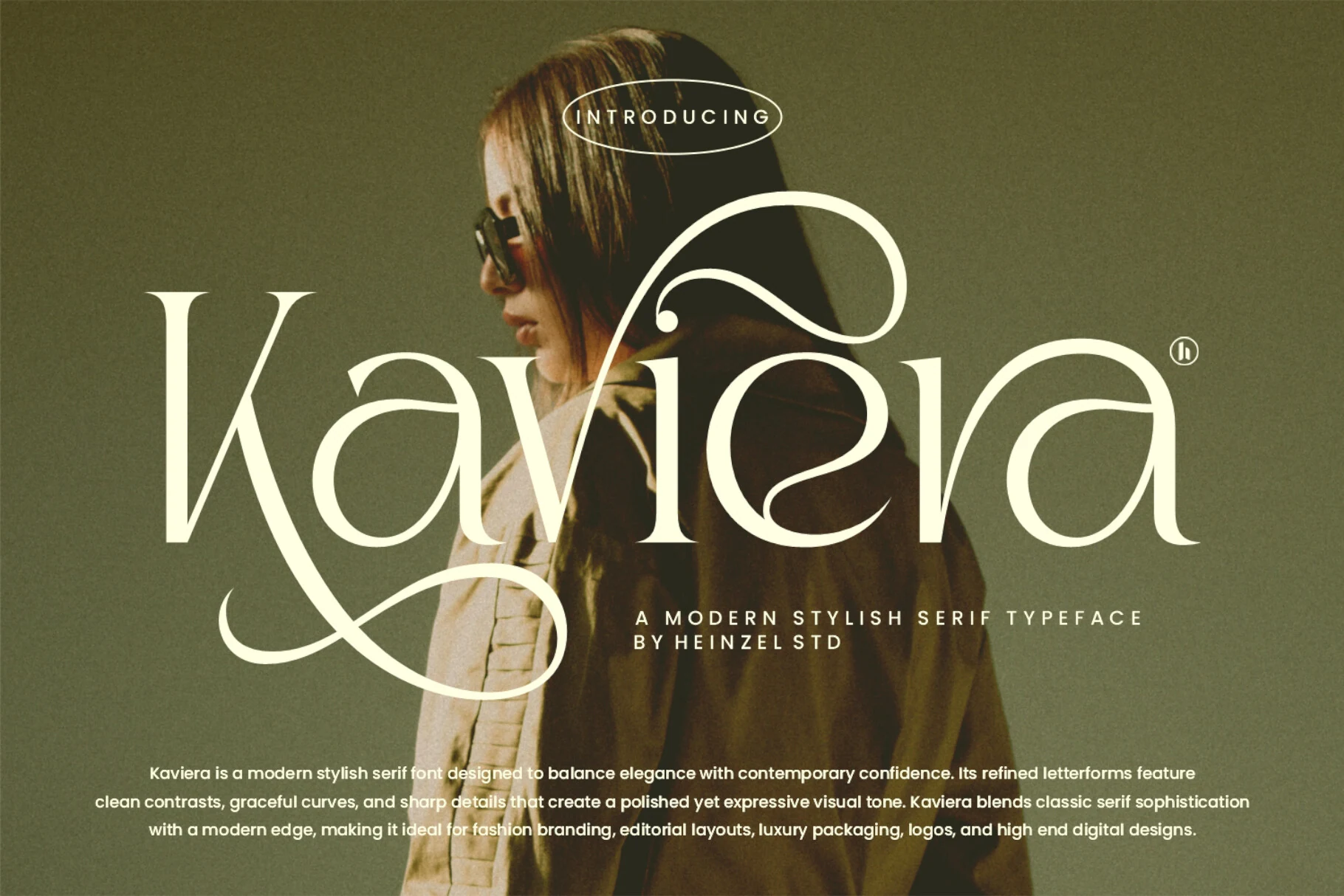
Best For: logos, fashion branding, editorial designs, luxury designs
Kaviera Font has a fashion-editorial serif structure with sharp contrast, narrow stress, and long sweeping curves that turn individual letters into visual anchors. Its polished rhythm fits Elegant Fonts lists where the typography needs to feel refined without becoming quiet.
The ornate curves work best when the wordmark has enough horizontal space, because the extended strokes need room to complete their shapes. Use strong contrast behind it and keep supporting text restrained so Kaviera stays in control of the title hierarchy.
Elegant Font Abby Font
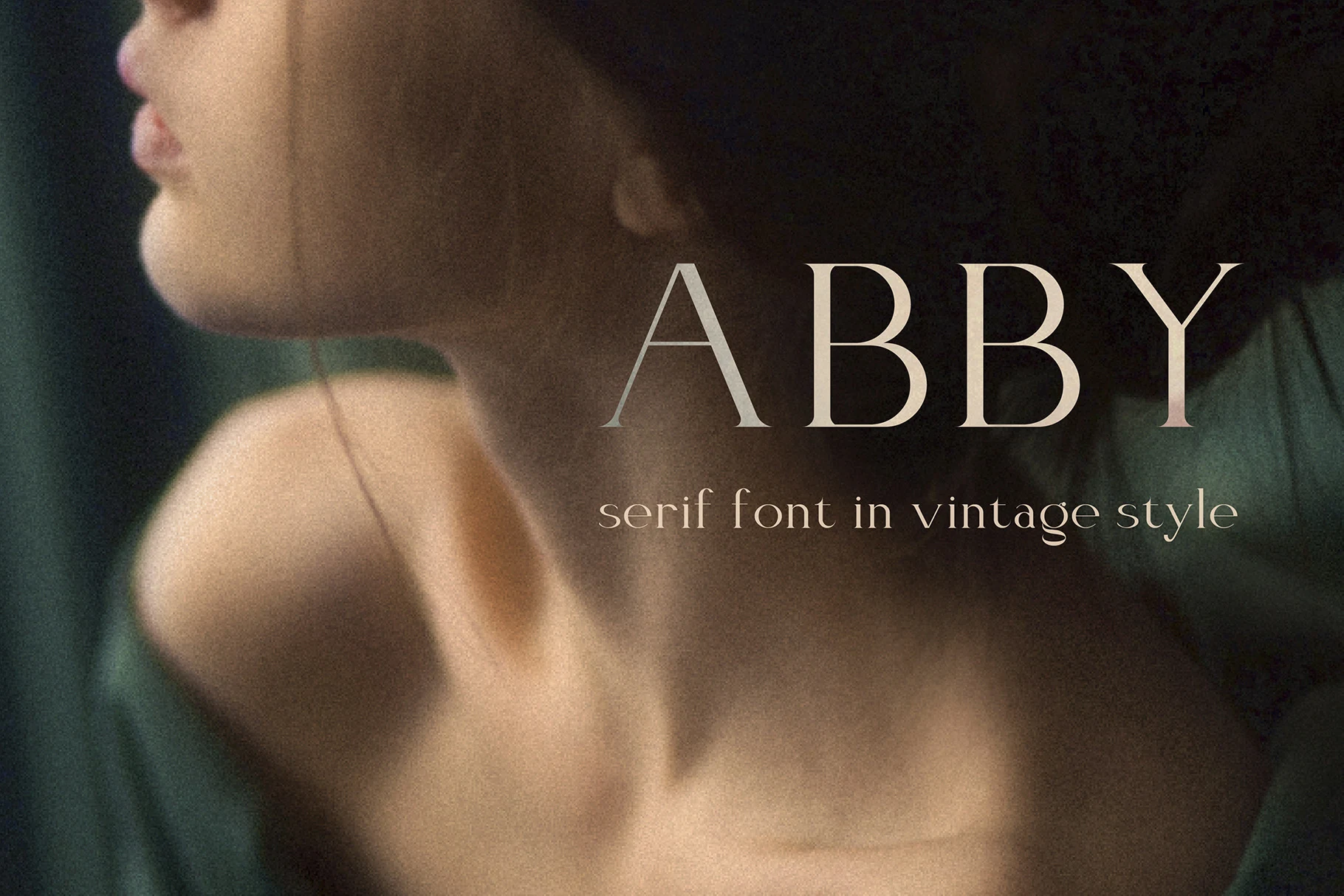
Best For: logos, editorial designs, minimal designs, vintage designs
Elegant Font Abby Font carries a quiet vintage mood, with tall serif capitals, delicate hairlines, and softly flared terminals that echo old printed title pages. The spacing feels airy rather than dense, which gives it a composed, gallery-like presence suited to Elegant Fonts collections and minimalist brand layouts.
It performs best in short words, logos, and headings where the contrast and proportions stay visible. The letterforms invite small experiments with tracking and scale, so you can make the same word feel either more classical or more modern without adding decorative extras.
Munnes Font
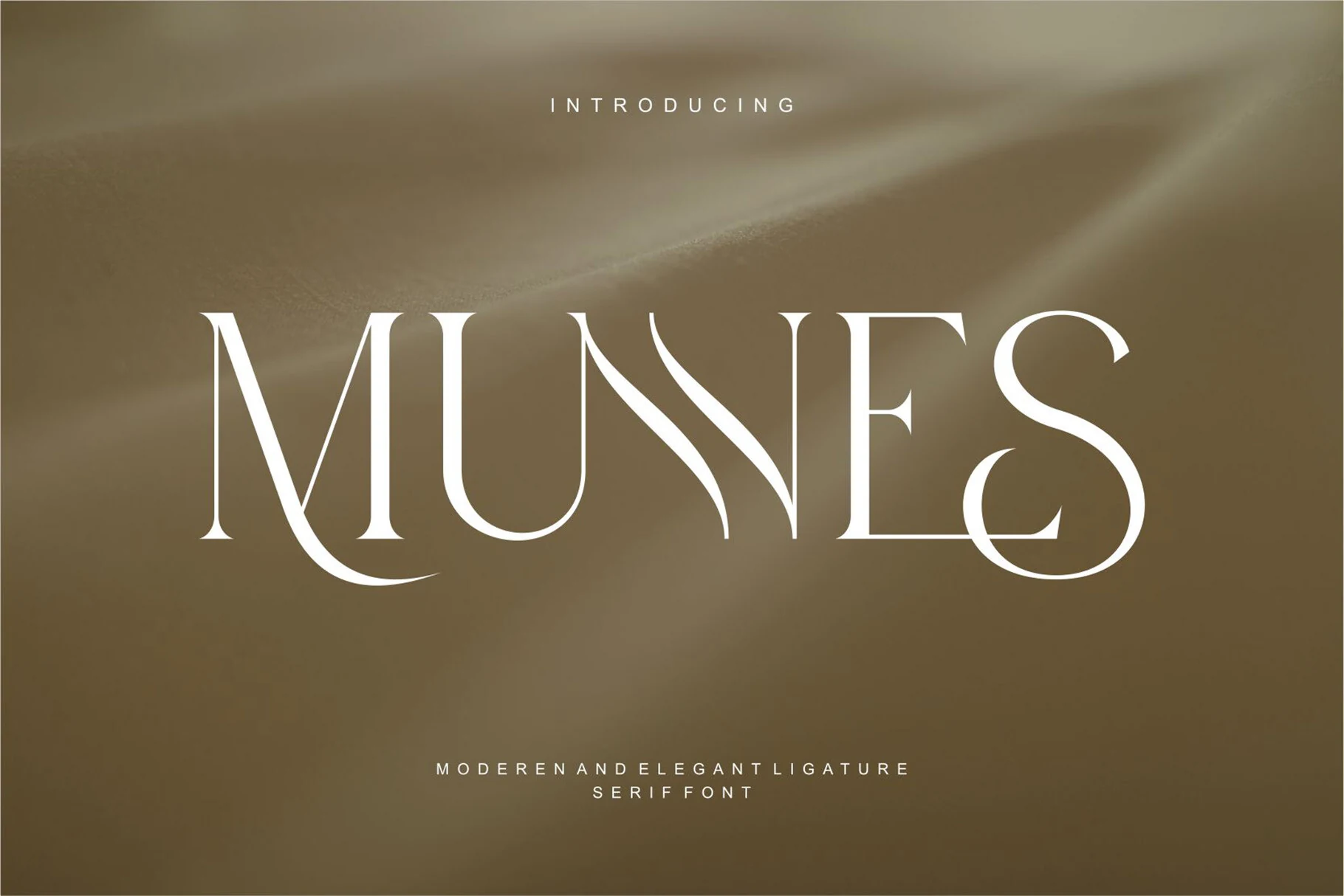
Best For: logos, fashion branding, editorial designs, luxury designs
Munnes Font uses tall serif capitals, sharp contrast, and sculpted curves to create a refined vintage-modern title style. The sweeping lower strokes and narrow internal spaces give it a polished rhythm that fits Elegant Fonts roundups without feeling overly delicate.
Keep Munnes in short display settings where its curved terminals and dramatic proportions can stay readable. Wider tracking helps the letterforms feel more luxurious, while restrained supporting type keeps the main wordmark from competing with its own decorative movement.
Elegant Font
Best For: logos, fashion branding, editorial designs, high-end designs
Elegant Font has a poised modern serif look, with smooth curves, balanced proportions, and fine contrast that keeps the large letterforms polished instead of stiff. It carries the kind of composed, fashion-led presence that fits naturally into Elegant Fonts roundups for refined branding and clean editorial statements.
This style works best at display size, where the rounded bowls and tapered strokes have room to read clearly. Give it generous spacing and keep the supporting typography quiet, because the font already brings enough character to lead the hierarchy on its own.
Grandeur – Elegant Classic Serif Font
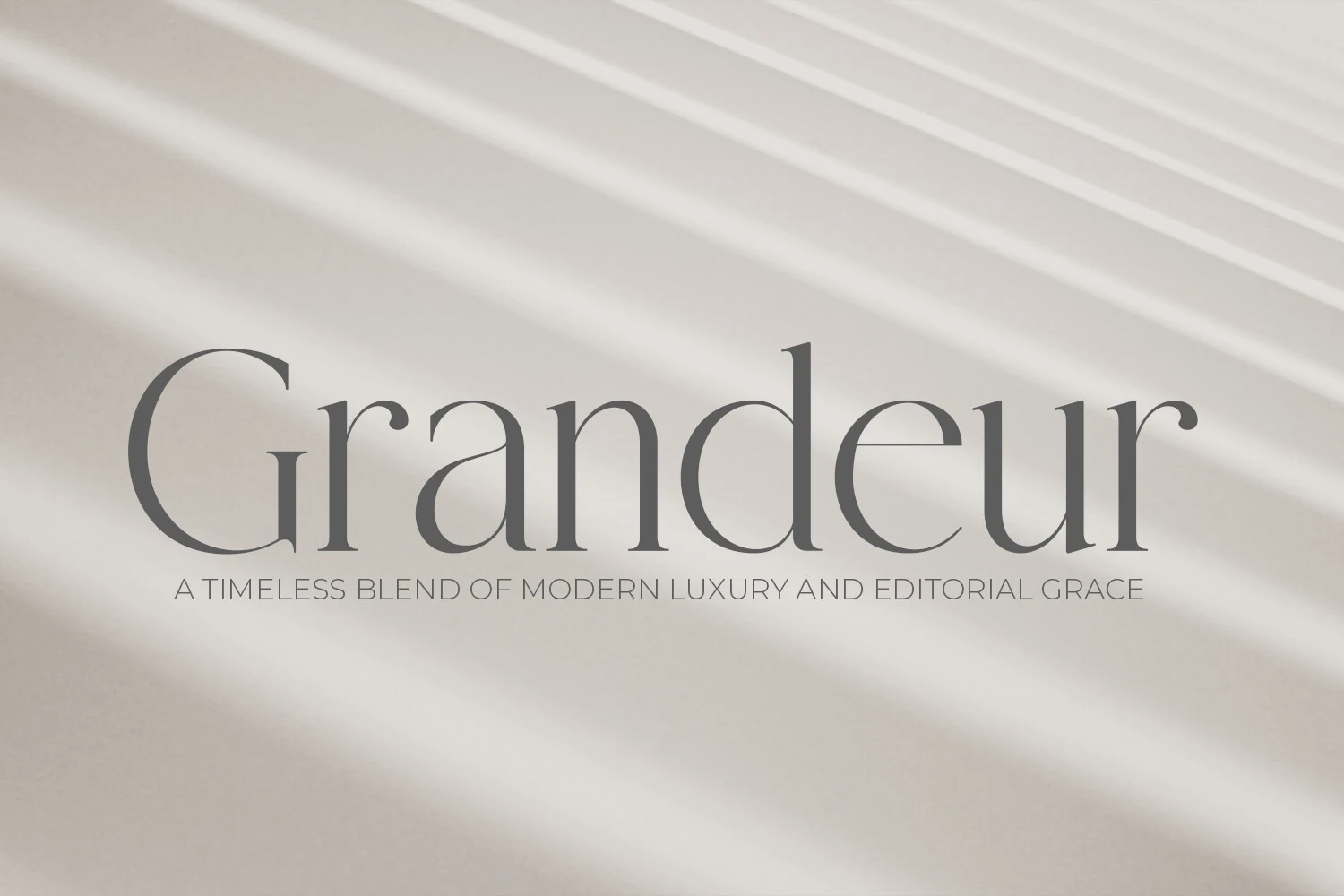
Best For: logos, editorial designs, luxury designs, premium designs
Grandeur – Elegant Classic Serif Font uses a calm, high-contrast serif structure with broad curves, slim stems, and a clean vertical rhythm. It belongs in Elegant Fonts collections when the design needs understated luxury rather than heavy ornament.
The wide, open spacing gives long words a smooth editorial flow, but the thin details still need enough scale to stay crisp. Use it for title hierarchy with restrained supporting type, and avoid tight tracking so the refined curves do not collapse into each other.
Bezoria – Elegant Serif Font
Best For: logos, branding, wedding designs, editorial designs
Bezoria – Elegant Serif Font mixes crisp serif structure with flowing ornamental swashes, especially in the capital B and the final a, so the wordmark feels polished without losing movement. The contrast between its slim joins and fuller curves gives it the kind of elevated presence that earns a place in Elegant Fonts collections for branding and editorial work.
It reads best in logos, invitations, and short headlines where the decorative strokes have space to open up. Keep the tracking slightly relaxed and pair it with a restrained sans or simple body serif, otherwise the flourished capitals can overpower the rest of the layout.
Aura Font
Best For: logos, fashion branding, modern designs, high-end designs
Aura Font is a rounded display sans with sleek monoline strokes, soft corners, and oversized ligature curves that pull the letters into one continuous wordmark. Its clean structure keeps the style readable, while the sweeping joins give it enough polish for Elegant Fonts collections focused on modern branding.
The huge ligatures need room, so Aura works best in short names, fashion marks, and wide title layouts rather than dense text. PUA encoding helps keep the glyph and swash options accessible, making it easier to control the amount of movement in a logo or headline.